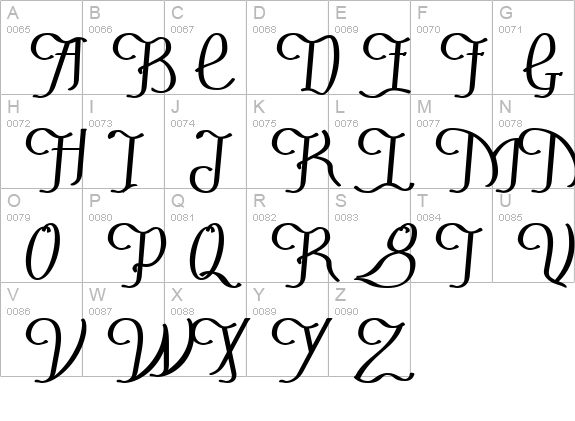
FestivalFlourish Bold is a strong, high-contrast variant in the FestivalFlourish typeface family \xE2\x80\x94 well suited to headlines, attention-grabbing titles, and strong calls-to-action.
FestivalFlourish Bold font is a stunning display typeface that exudes elegance and sophistication. With its intricate flourishes and bold strokes, this font is perfect for creating eye-catching designs that demand attention. Whether you're working on invitations, posters, or branding materials, FestivalFlourish Bold font will add a touch of luxury to your projects. What's even better is that FestivalFlourish Bold font is completely free to download at FontsMarket.com. Yes, you read that right - you can enhance your designs with this exquisite font without spending a penny. Don't miss out on the opportunity to elevate your creations with FestivalFlourish Bold font - download it now and let your creativity flourish!